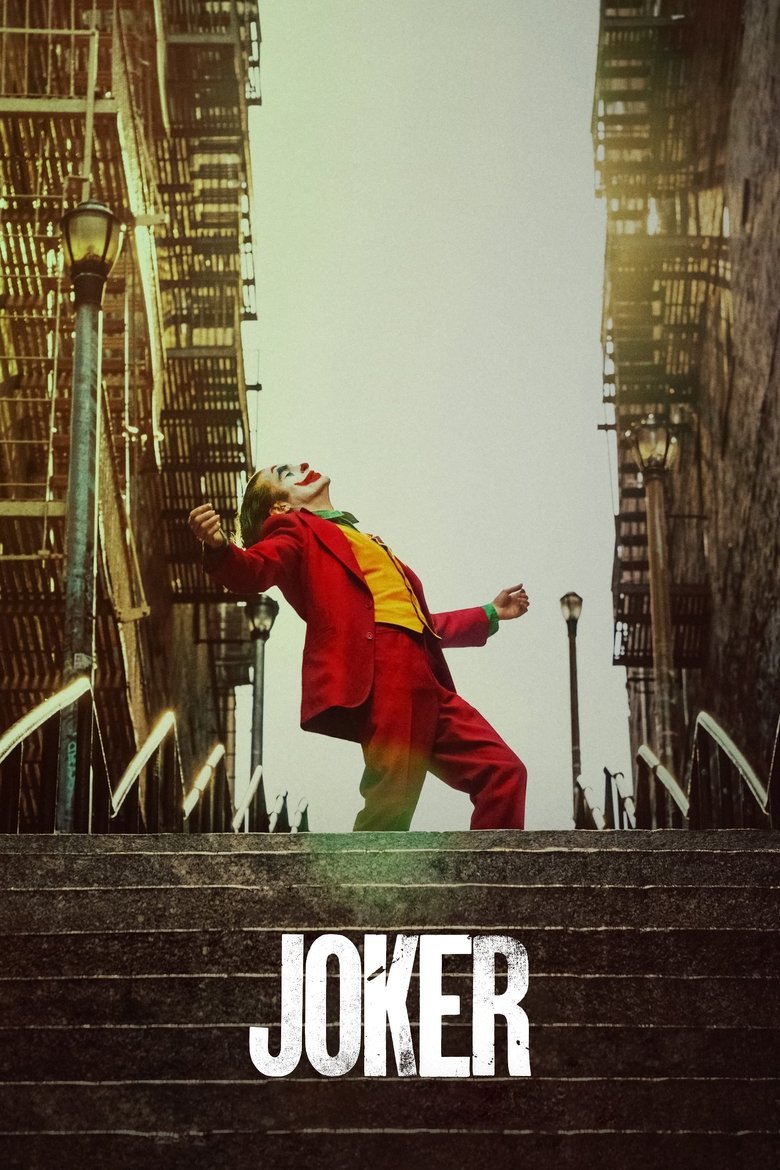
About the Joker font
Joker's poster type is a cracked, elegant serif with a sinister edge. Cinzel — a free Roman inscriptional serif — captures that theatrical, unsettling gravitas.
What font is used in the Joker logo?+
The original Joker logo uses custom lettering. This generator recreates the look with Cinzel — a free, open-license font you can style and download.